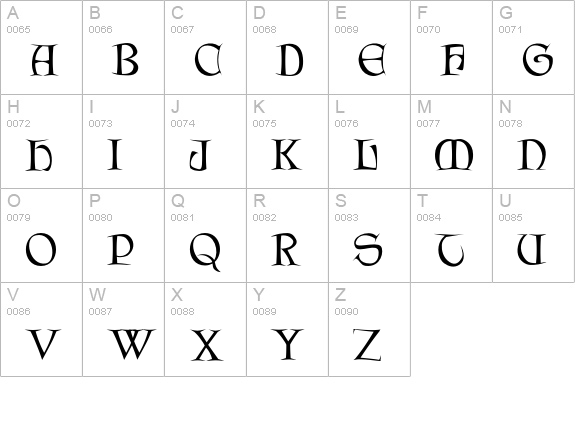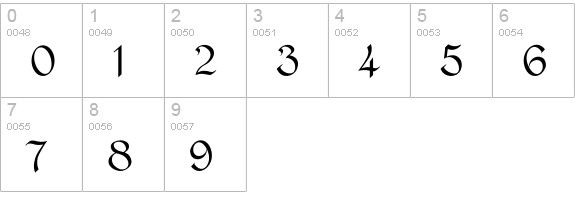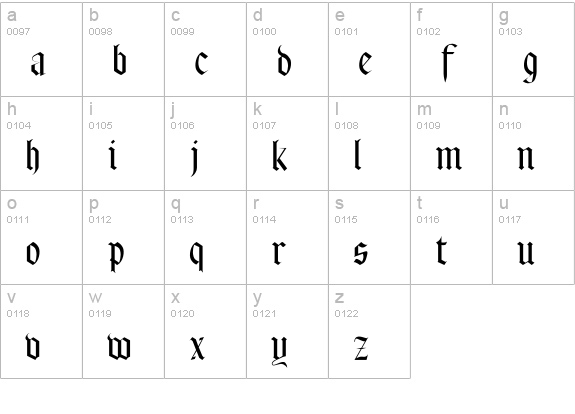
Tintagel Font Details
Introducing Tintagel, a captivating and versatile font that adds a touch of mystique and elegance to any design. With its unique and intricate details, Tintagel is perfect for those seeking a font that stands out from the crowd. Tintagel's gracefully flowing lines and delicate curves create a sense of enchantment and sophistication. Its timeless aesthetic makes it suitable for a wide range of creative projects, including logos, invitations, branding, and more. Whether you're designing for a modern or vintage-inspired concept, Tintagel effortlessly adapts to your vision, adding a touch of magic to your creations. What makes Tintagel even more remarkable is its availability as a free font. Yes, you heard it right - Tintagel is freely available to download at FontsMarket.com. This means that you can easily access and utilize this extraordinary font without any cost or restrictions. Now, you can elevate your designs with a professional and captivating typeface, all without breaking the bank. FontsMarket.com is renowned for its vast collection of high-quality fonts, and Tintagel is no exception. Designed with precision and attention to detail, this font ensures that every character and curve is crafted to perfection. Its extensive character set includes uppercase and lowercase letters, numerals, punctuation marks, and multilingual support, making it suitable for a global audience. So why wait? Enhance your design projects with the enchanting allure of Tintagel. Download this incredible font for free at FontsMarket.com and unlock a world of possibilities for your creative endeavors. Whether you're a professional designer or a passionate hobbyist, Tintagel is the perfect choice to add that extra touch of elegance and intrigue to your designs.